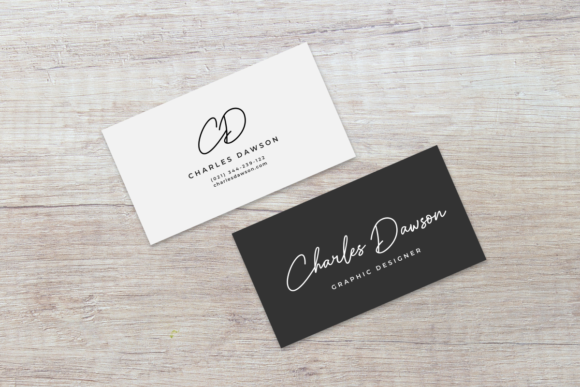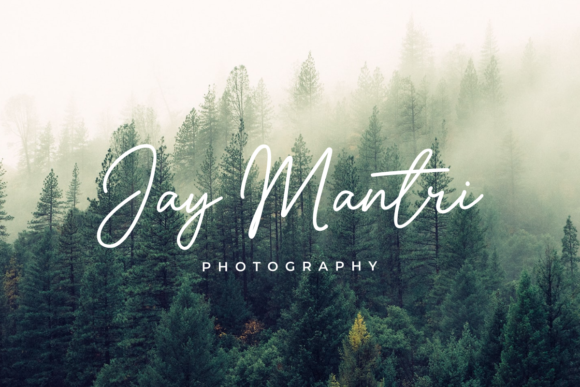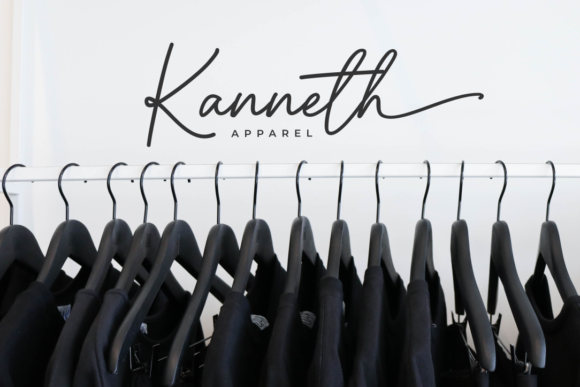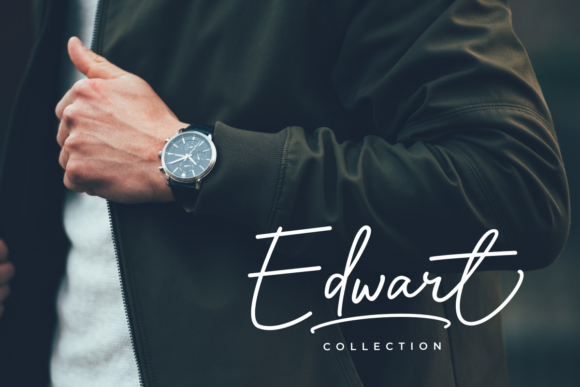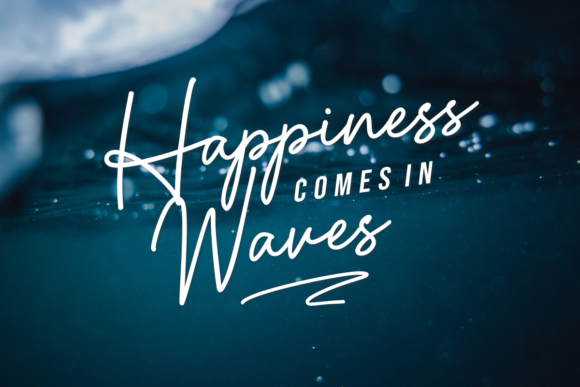
About Handswell Font
Handswell is a captivating handwritten font that showcases a natural and unique style, making it a delightful choice for a wide range of design projects. With its organic and flowing letterforms, Handswell adds an attractive and elegant touch to any design.
This versatile font is well-suited for various applications, including branding, business cards, clothing designs, quotes, logos, social media graphics, and more. Its handcrafted appearance brings a personal and authentic feel to your designs, allowing you to create a strong visual identity.
Whether you’re aiming for a minimalist and clean look or a more playful and casual vibe, Handswell adapts effortlessly to different design styles. Its fluid strokes and charming imperfections give your text a sense of warmth and character.
By using Handswell, you can add a personal touch to your projects, making them stand out from the crowd. Its natural and unique style brings a touch of elegance and sophistication to your branding materials and adds a whimsical flair to your social media posts.
Handswell offers a wide range of possibilities to express your creativity. Experiment with different letter combinations, play with ligatures, and explore the various stylistic alternates available to add variation and visual interest to your designs.
In summary, Handswell is a captivating handwritten font that brings a natural and unique style to your design projects. With its versatility, it is well-suited for branding, business cards, clothing, quotes, logos, and more. Whether you’re aiming for a clean and minimalistic look or a playful and casual vibe, Handswell adds an attractive and elegant touch to your designs, making them truly stand out.